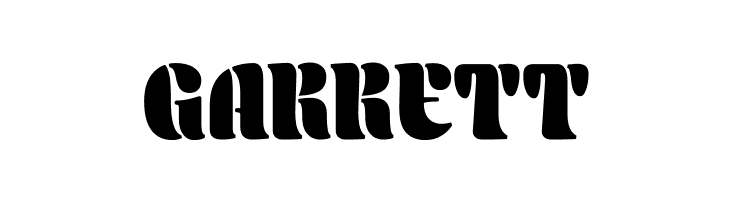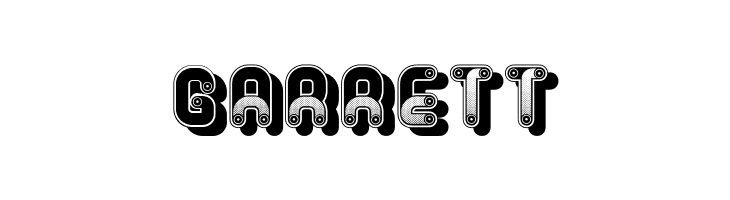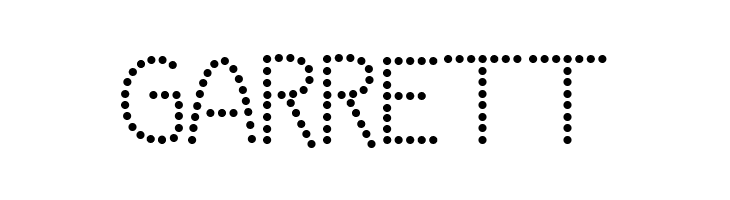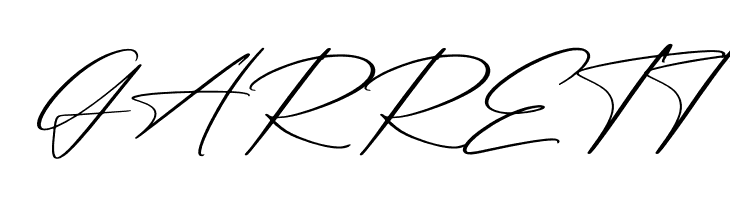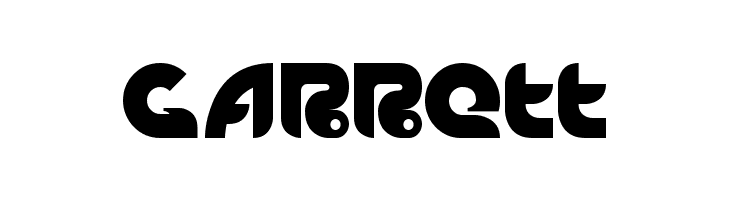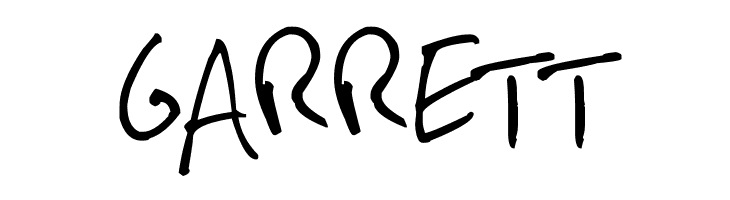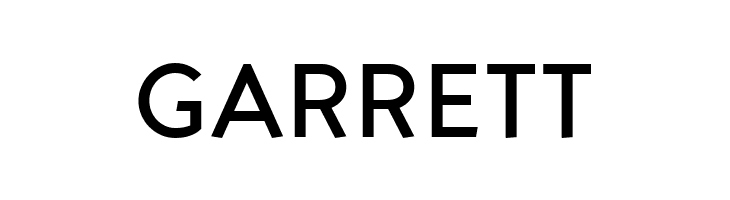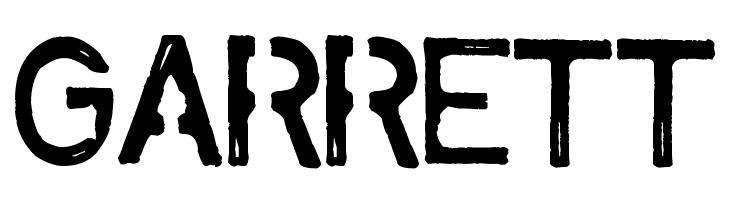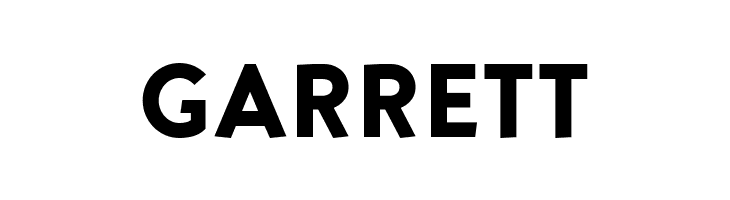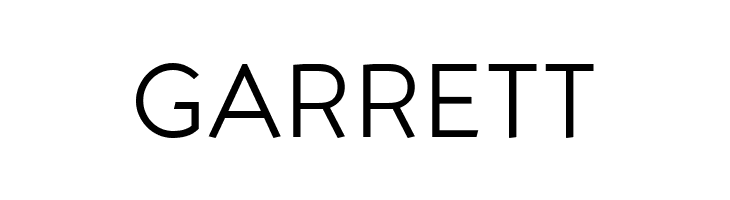
A bold, decorative font with a vintage military style and three-dimensional effect.
A bold, decorative font with playful circular embellishments and vintage flair.
A bold, geometric stencil-style font with a modern, impactful design.
A bold, distressed font with a rugged, industrial look.
A bold, three-dimensional font with a strong, authoritative style.
A bold, three-dimensional font with a shadow effect, ideal for impactful headlines.
A bold, military-inspired font with strong outlines and a stencil-like appearance.
A bold, stencil-style font with a rugged, distressed texture.
A bold, Gothic-inspired font with sharp angles and pointed serifs.
A bold, Gothic-inspired font with sharp angles and dramatic serifs.
A bold, italicized font with dynamic slant and strong visual impact.
A dynamic italic font with sharp angles and elegant serifs.
A decorative font with intricate detailing and a playful, artistic style.
A playful, italicized font with dotted strokes and decorative elements.
A modern, dotted font with consistent spacing and a playful style.
A casual, handwritten font with smooth, flowing strokes and a friendly appearance.
Elegant, flowing script font with a handwritten style.
A bold, decorative font with a retro, three-dimensional style.
An elegant and decorative script font with flowing, ornate characters.
A bold, decorative font with nature-inspired ornamental elements.
Nature-inspired ornamental designs featuring leaves and coffee beans in bold silhouettes.
A bold, decorative font with thick, rounded strokes and a modern-vintage style.
A bold, high-contrast font with a modern and vintage blend.
A playful, handwritten font with tall, narrow letters and smooth strokes.
A flowing, cursive script with elegant loops and swashes.
A bold, modern sans-serif font with clean, geometric lines.
A bold, modern sans-serif font with geometric influences and rounded edges.
A clean, modern sans-serif font with consistent stroke width and rounded edges.
A bold, modern font with geometric influences and consistent stroke width.